How Variable Fonts Elevate Your Brand With Proven Style
Variable fonts are transforming how brands approach design. Unlike traditional static font families, variable fonts allow designers to control weight, width, slant, and optical size all within a single file. This flexibility gives modern brands more control, more consistency, and more creative possibilities across platforms.
Let’s explore why variable fonts are becoming essential for today’s digital branding.
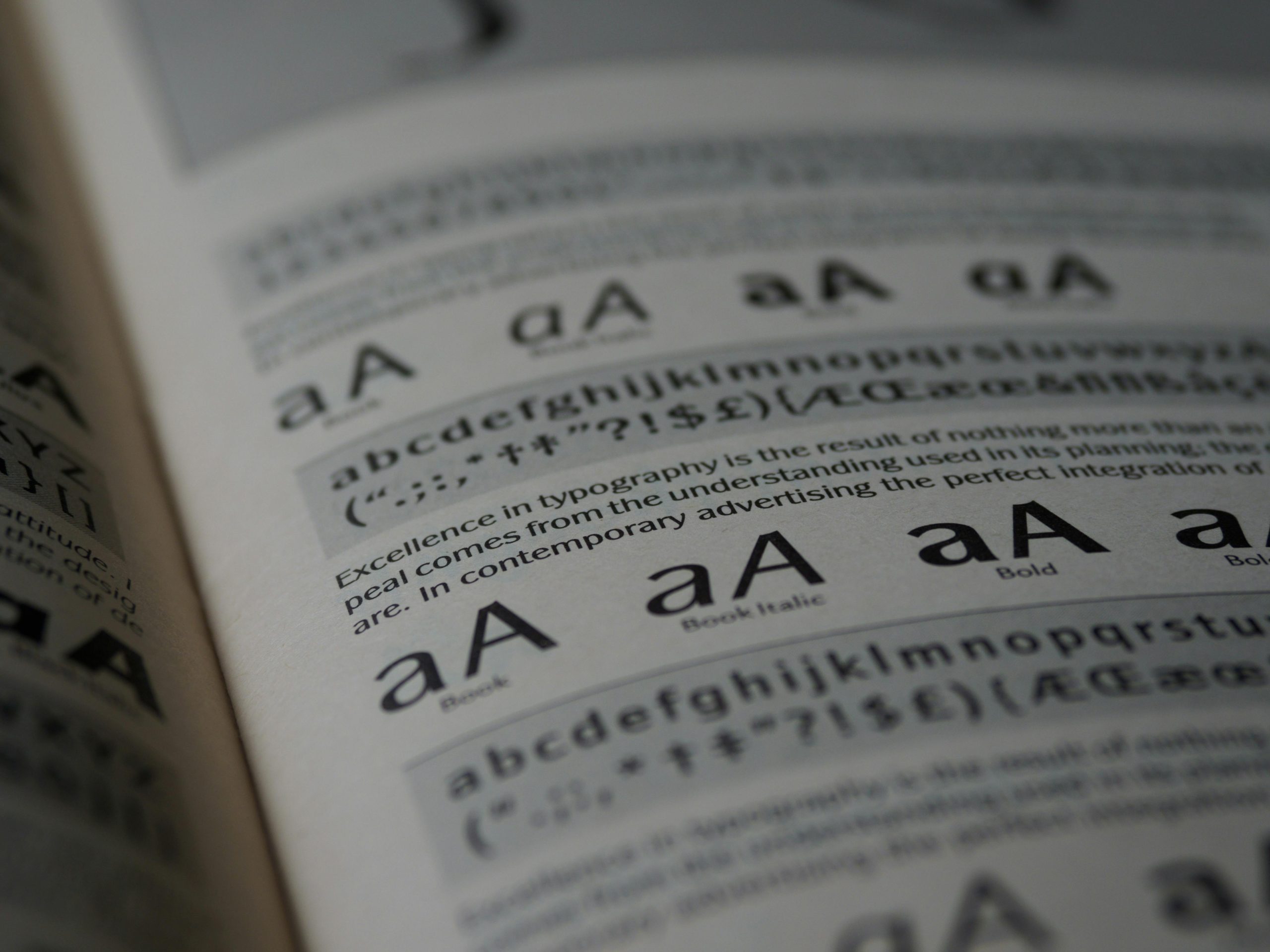
How Variable Fonts Elevate Your Brand With Proven Style
What Makes Variable Fonts Different?
Traditional fonts come as separate files—Regular, Bold, Light, Black, etc.
Variable fonts combine these into one adaptable file.
Benefits include:
• Infinite weight adjustments
• Customizable width and slant
• Smooth transitions between styles
• Reduced file count for designers and developers
This means brands can maintain one type family and customize it as needed.
How Variable Fonts Improve Brand Consistency
Brand identity depends on consistent typography. Variable fonts help by:
• Delivering uniform output across mobile, desktop, and print
• Preventing mismatched weights from multiple files
• Allowing tighter control over typographic tone
With a single adjustable font, your brand voice stays stable everywhere.
Performance Advantages for Websites
Variable fonts offer measurable performance boosts:
• Fewer font files → smaller page size
• Faster loading → better user experience
• Reduced layout shifts → improved reading flow
This makes them ideal for brands prioritizing speed and smooth digital experiences.
Creative Freedom for Designers
Designers love variable fonts because they allow:
• Micro-adjustments to hierarchy
• Unique typographic animations
• Fully responsive typography
• Greater expression within one brand system
This blend of control + creativity helps brands stand out without losing coherence.